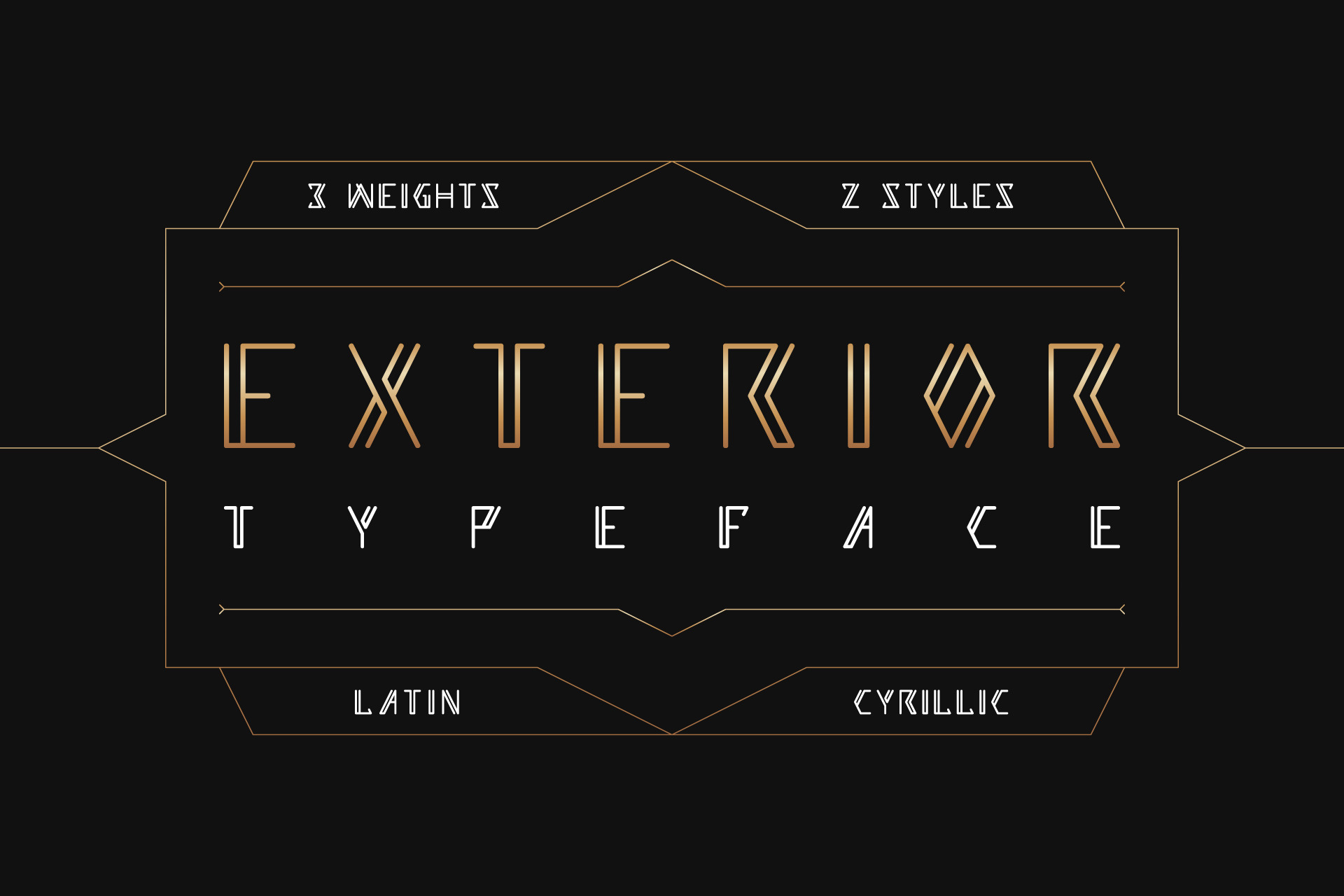
EXTERIOR - 6 fonts
EXTERIOR - outline geometric typeface with art deco style
◉ 6 fonts:
- Exterior Regular
- Exterior Bold
- Exterior Rough Regular
- Exterior Rough Bold
◉ Latin + Cyrillic alphabets